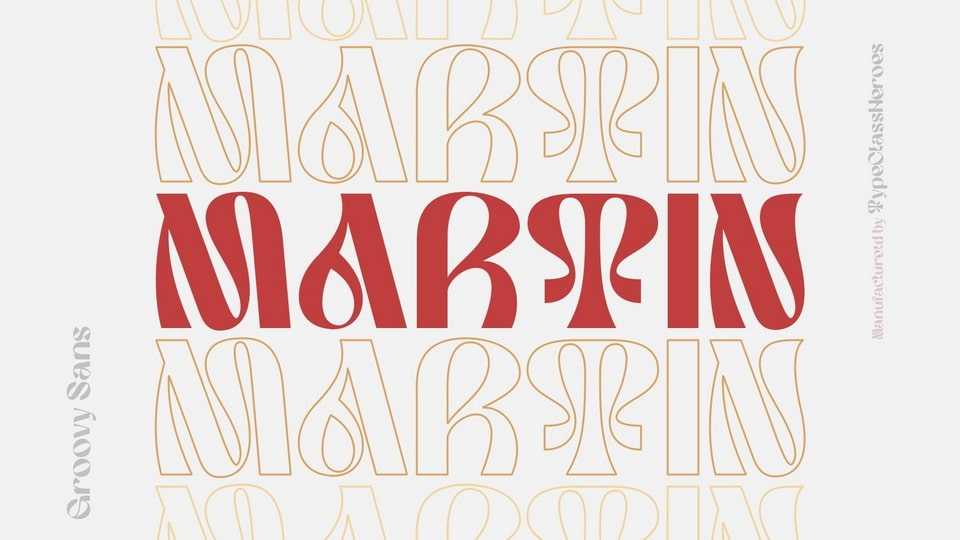
Download Martin font, a groovy and funky display typeface with unique personality. Use Martin font for any branding, product packaging, invitation, quotes, t-shirt, label, poster, logo etc.
Designer: TypeClassHeroes